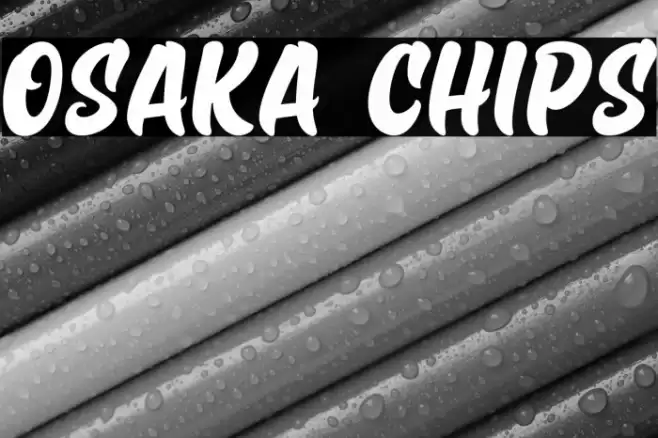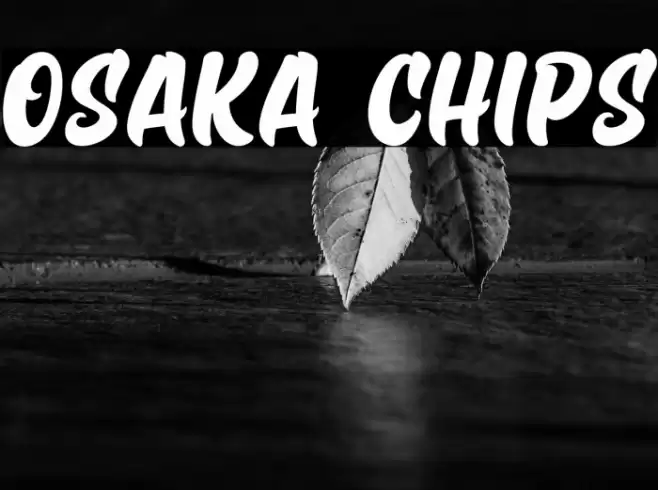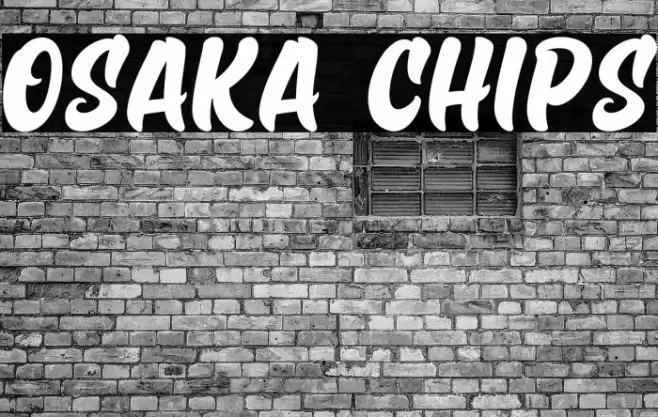
Osaka Chips Font
Osaka Chips Description
This font features a bold and dynamic script style with a playful and energetic appearance. The letters are thick and rounded, giving a sense of friendliness and approachability. The strokes are smooth and fluid, creating a sense of movement and flow. The uppercase and lowercase letters maintain a consistent style, with slight variations that add character. The numbers and special characters are designed to match the overall aesthetic, ensuring a cohesive look across all text. This font is ideal for projects that require a lively and engaging typeface.
A bold, dynamic script font with a playful and energetic style from Regular fonts.
- Proposed Projects: Ideal for branding, advertising, packaging, and social media graphics that require a lively and engaging typeface.